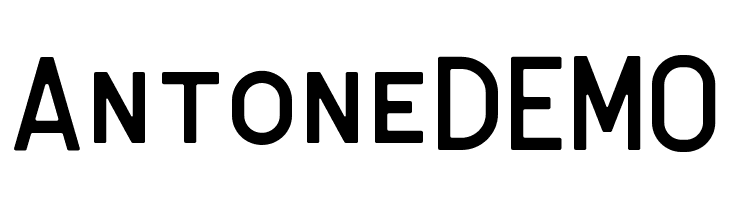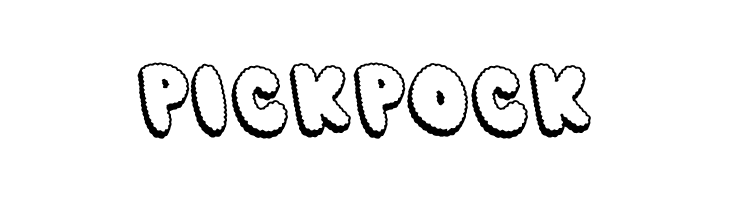
A playful, bold font with scalloped edges and a bubbly appearance.
A clean, modern sans-serif font with uniform strokes and excellent readability.
A modern sans-serif font with rounded edges and uniform strokes.
A pixelated, digital-style font with a retro, textured appearance.
A modern, italicized font with bold strokes and a dynamic appearance.
A bold, geometric font with a modern and assertive style.
A playful, bone-themed decorative font with a quirky skeletal design.